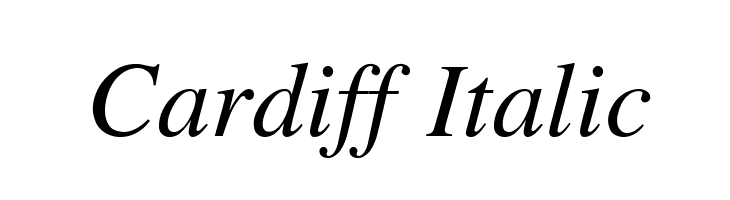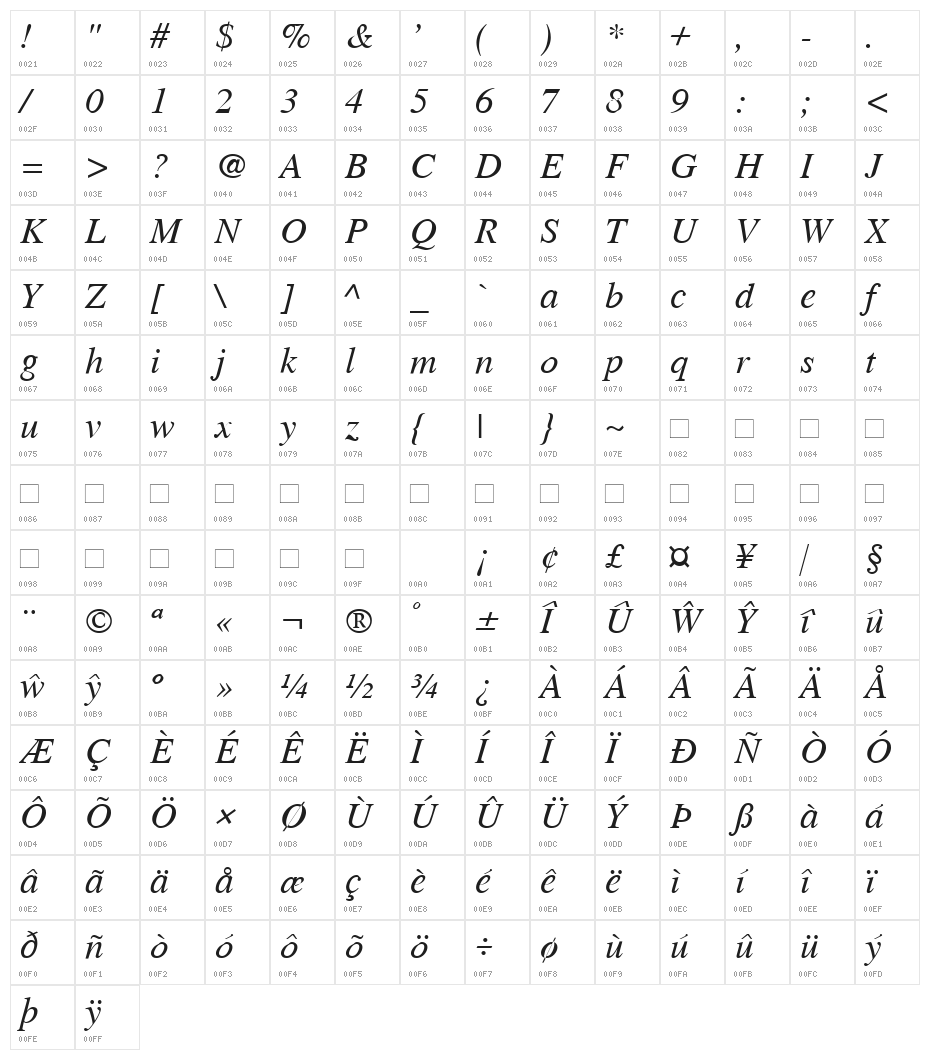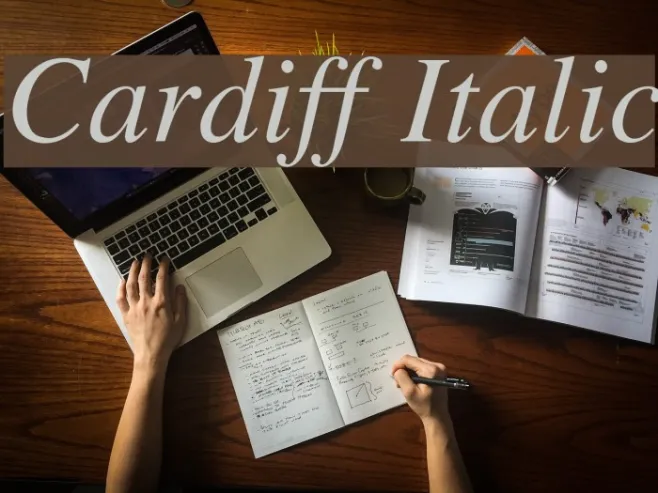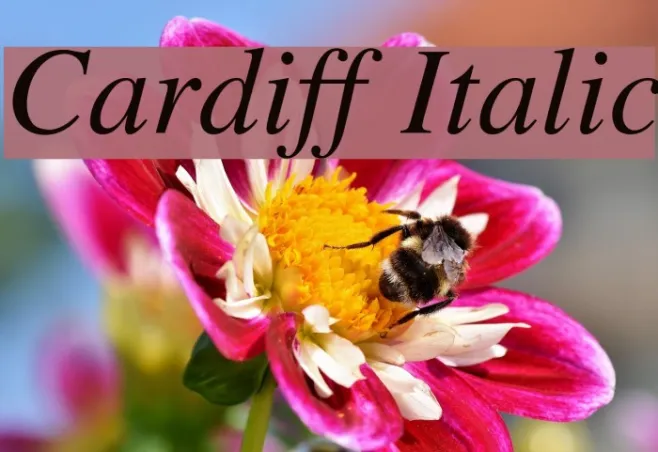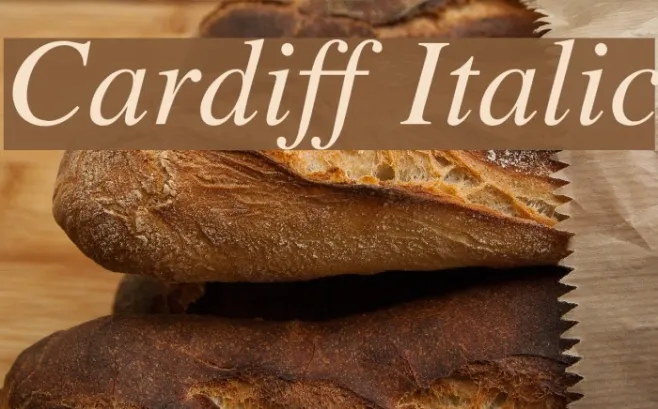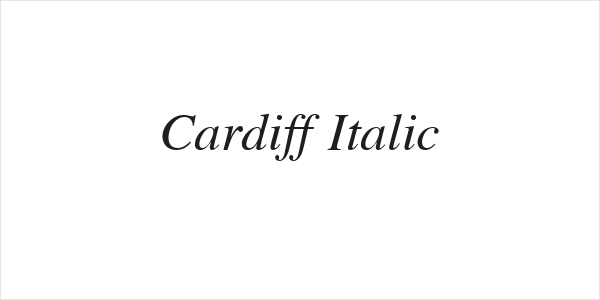
Cardiff Italic Font
Cardiff Italic Description
This elegant serif typeface features a classic italic style with smooth, flowing curves and a refined appearance. The letters are slightly slanted, adding a sense of motion and sophistication. The font maintains a balanced proportion between thick and thin strokes, enhancing readability while preserving its decorative appeal. The numerals are designed to complement the alphabetic characters, maintaining the same graceful style. Special characters are included, ensuring versatility for various design needs.
| Proposed Projects | Ideal for formal invitations, elegant branding, book covers, and editorial design. |